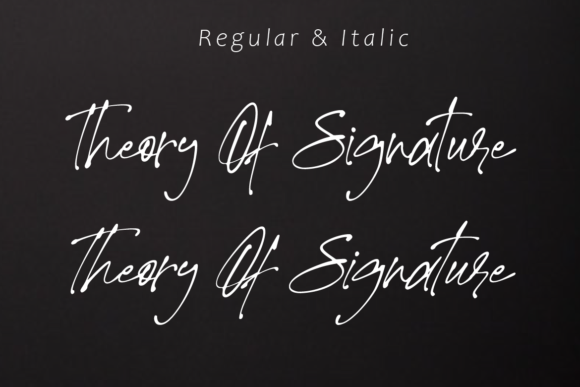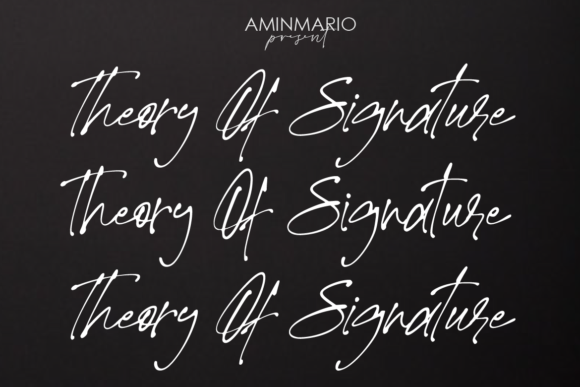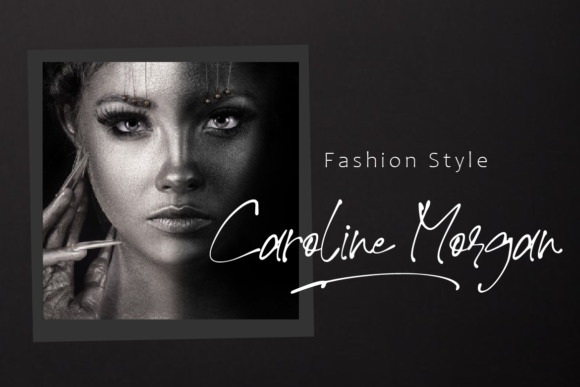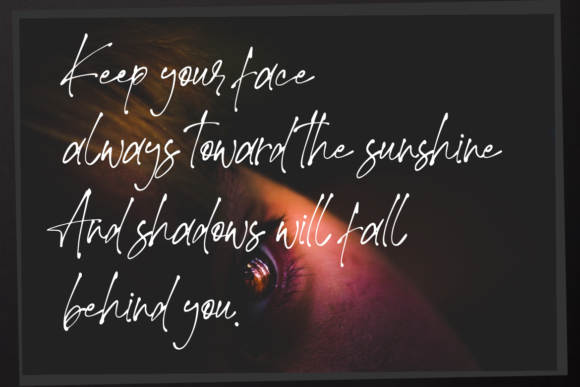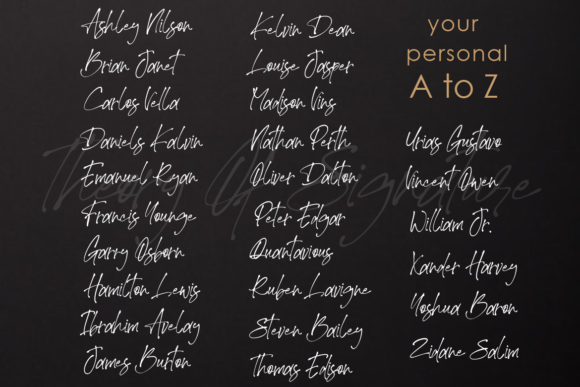
Theory of Signature Font
About Theory of Signature Font
Theory of Signature is a stylish and incredibly elegant script font. It looks stunning on wedding invitations, thank you cards, quotes, greeting cards, logos, business cards and every other design which needs a handwritten touch.